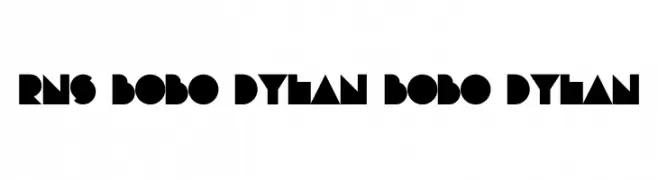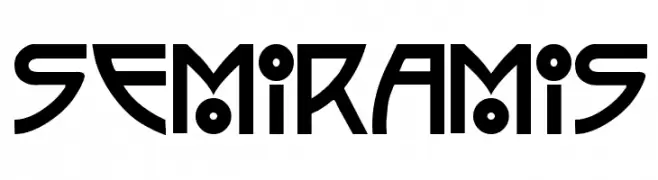
( Fonts by Marc Beekhuis - www.beekhuis.ch )
A futuristic, geometric font with circular and semi-circular shapes.
( Fonts by or from www.graffitifonts.net )
A bold, decorative font with a mechanical, circuit-like design.